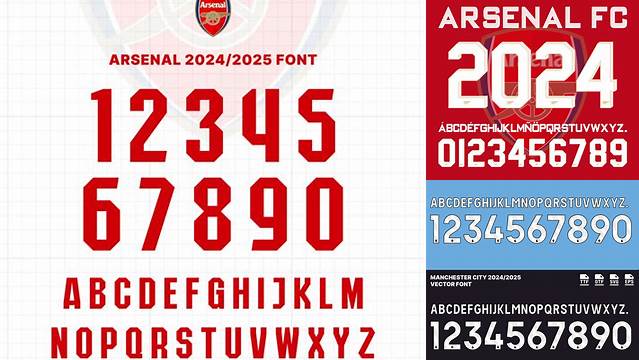
H2: Unveiling the Arsenal FC Font: A Deep Dive
So, what makes the Arsenal FC font so special? Well, first off, it's more than just a collection of letters; it's a symbol of the club's identity. The font is carefully crafted to represent the spirit, history, and future of the Gunners. It's designed to be instantly recognizable and associated with the club's brand. Think about it: when you see a specific font, you immediately think of Arsenal, right? That's the power of a well-designed typeface. The Arsenal font is used across various platforms, from the official website and merchandise to social media posts and stadium signage. The font embodies the club's values: tradition, innovation, and a commitment to excellence. The chosen font reflects Arsenal's character. The font's curves and angles speak volumes about the team's spirit. The font selection is a blend of aesthetics and functionality. The font is the cornerstone of Arsenal's visual communication. Each character is meticulously designed, mirroring the club's attention to detail. Every element, from the weight of the strokes to the spacing between letters, is optimized for readability and impact. The design communicates Arsenal's story. The font tells the tale of the club's legacy and ambitions. The font is more than just a design element. The font is carefully chosen to resonate with fans. The font selection reinforces Arsenal's standing in the football world. The font gives Arsenal an edge in terms of branding. The font also ensures consistency across all platforms. It's a crucial part of creating a strong brand identity. The font is designed for the future. The font evolves to reflect the current times. The font is used in marketing materials. The font choice is strategic and thought out. The font is recognizable worldwide. The font represents Arsenal's identity.
Arsenal's typography is regularly updated to stay in line with the club's current branding and style guidelines. These updates may involve changes to the font's weight, style, or even a complete redesign to reflect the club's evolution. The goal is always to keep the font modern and relevant while preserving the core elements that make it uniquely Arsenal. The fonts are a visual representation of the club. The fonts must be versatile and adaptable. The fonts must communicate effectively. The font must be easy to read. The fonts have a role in marketing. The font's history is also fascinating. The font is consistently updated. The font changes are well-considered. The font reflects Arsenal's core identity. The font evolves with the team. The font is integral to the club's identity. The font is a carefully designed element. The font maintains its brand identity. The font choice is crucial for marketing. The font is easily recognized.
H3: History and Evolution of Arsenal's Typography
The Arsenal FC font hasn't always been the same. Over the years, as the club has evolved, so has its visual identity, including the font. The typography has undergone changes, from subtle tweaks to complete overhauls, reflecting the changing times and the club's strategic branding direction. Early on, the club used more traditional typefaces, which were common in the early days of football. As the club modernized, so did its font, moving towards more contemporary and recognizable designs. These changes haven't just been about aesthetics; they've been strategic decisions to ensure the font aligns with Arsenal's brand values and communicates effectively with fans. Understanding this history gives you a better appreciation for the current font. Examining the changes over time reveals insights into Arsenal's brand development.
Each update has been carefully considered. The changes reflect the evolution of the club. From classic to modern, the typography reflects the club's story. The font has a legacy within Arsenal. The font has consistently evolved. The font is a significant part of the club's history. The font evolves with the times. The evolution of the font is fascinating. The font history reveals the evolution.